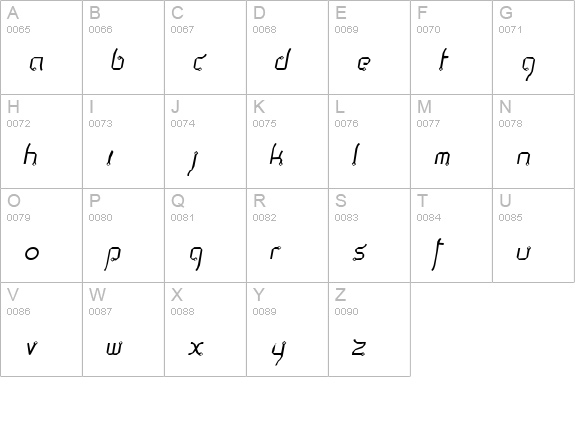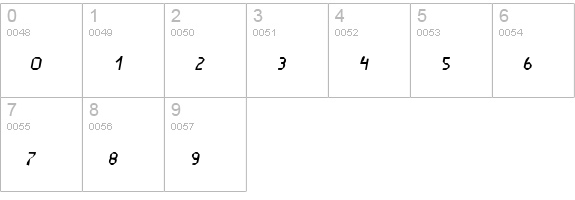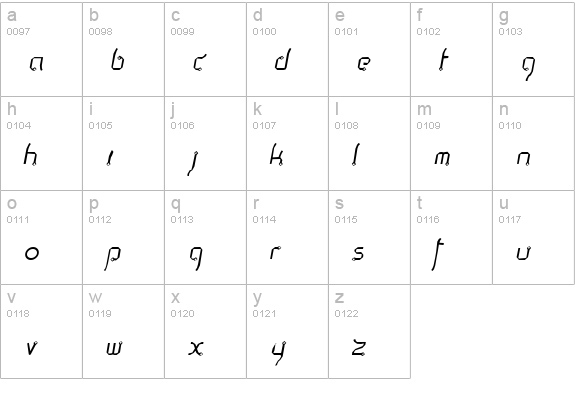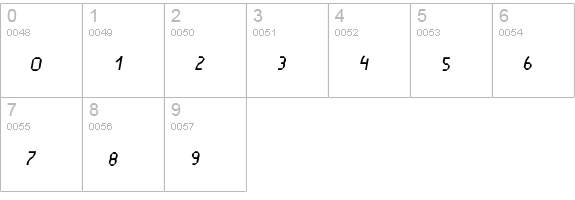
Thaipe ThinItalic Font Details
Introducing Thaipe ThinItalic, a sleek and elegant font that exudes sophistication and modernity. This font is perfect for adding a touch of class to your design projects, whether it be for a logo, branding materials, or even a website. The ThinItalic variant of Thaipe provides a delicate and refined look, with its slim letterforms and subtle slant. What sets Thaipe ThinItalic apart is not only its stunning aesthetics but also its accessibility. It is freely available to download at FontsMarket.com, making it a fantastic choice for designers on a budget or those who simply appreciate the value of a high-quality, free font. With Thaipe ThinItalic, you can achieve professional and stylish designs without breaking the bank. This font is meticulously crafted, with attention to detail evident in every stroke and curve. The ThinItalic variant offers a touch of elegance and sophistication, while still maintaining legibility and readability. Its slender and italicized form adds a unique and stylish flair to any design, making it a versatile choice for various creative projects. Whether you are working on a personal project, a client's branding, or a professional presentation, Thaipe ThinItalic will elevate your work to new heights. Its versatility and timeless appeal make it suitable for a wide range of applications, from fashion and beauty to luxury brands and editorial designs. Download Thaipe ThinItalic for free at FontsMarket.com and unlock a world of endless design possibilities. Embrace the beauty of this font and let it inspire your creativity. With Thaipe ThinItalic, you can effortlessly create stunning designs that leave a lasting impression. Experience the elegance and sophistication of this font today and take your designs to the next level.